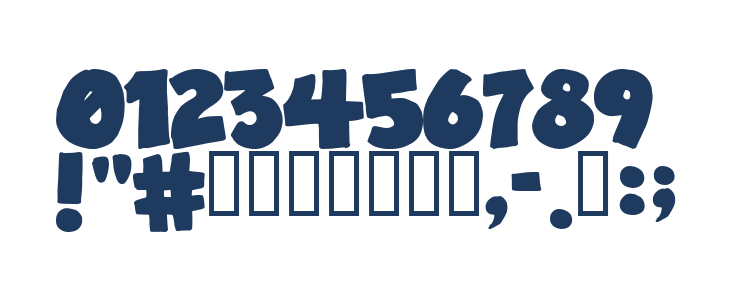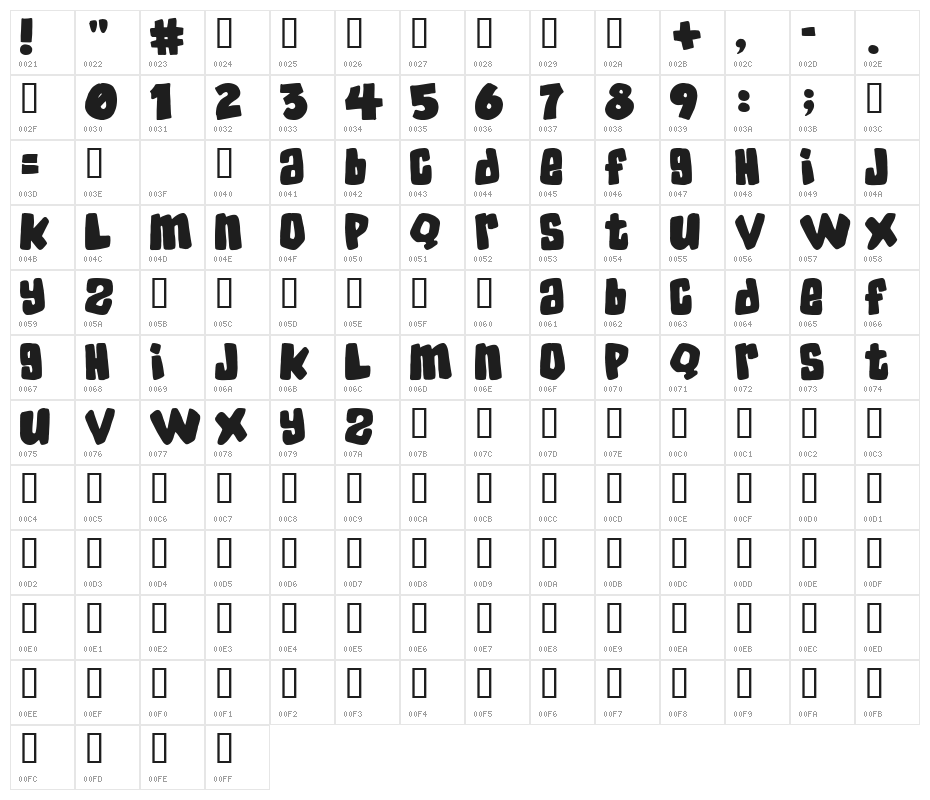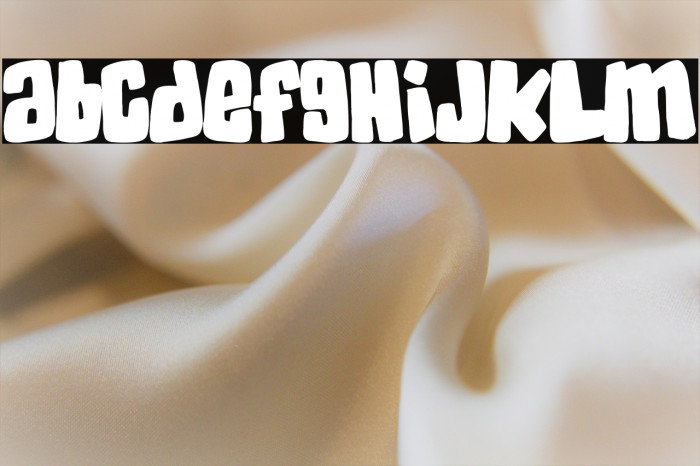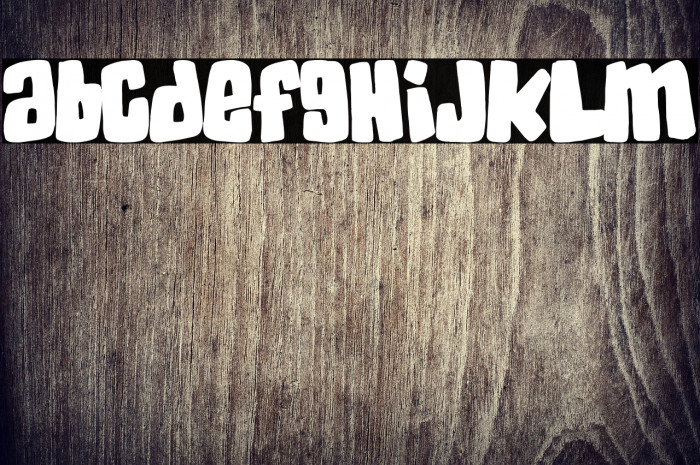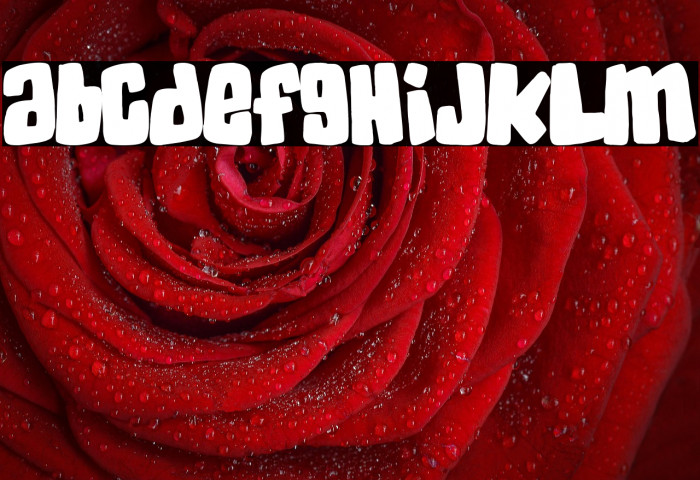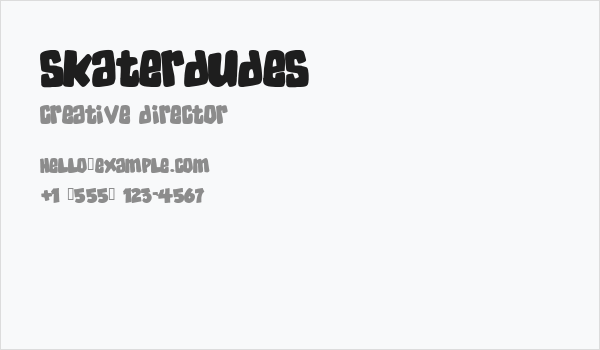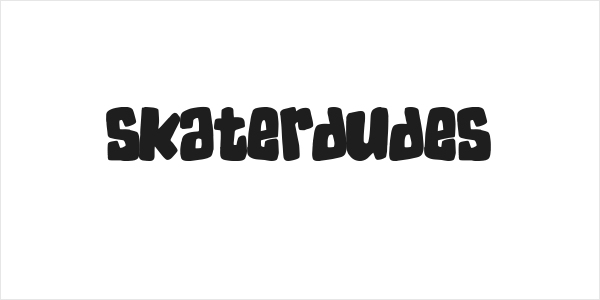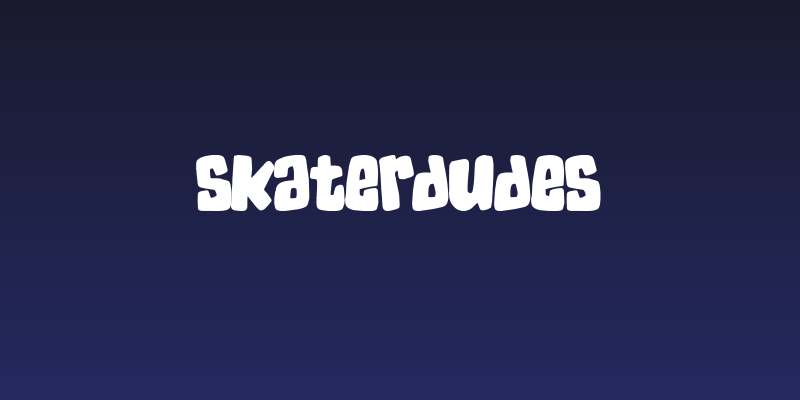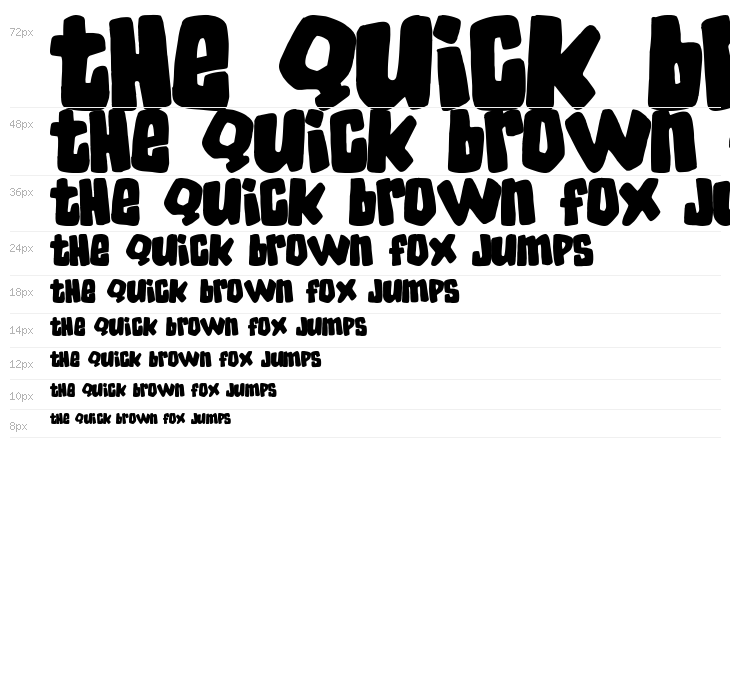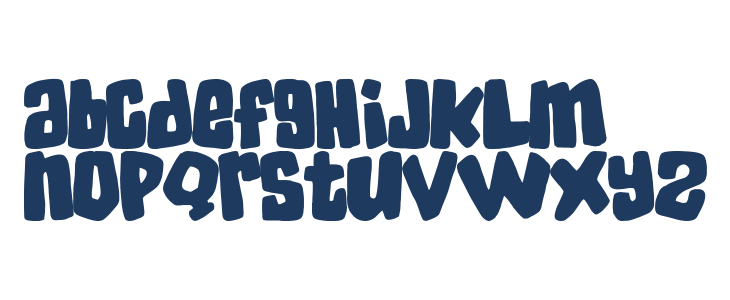
SkaterDudes Font
SkaterDudes Description
This font features a bold and playful design with a distinctly urban and youthful vibe. The characters are rounded and chunky, giving off a casual and relaxed feel. The uppercase and lowercase letters maintain a consistent style, with a slight tilt that adds to the dynamic appearance. The numbers and special characters follow the same aesthetic, ensuring a cohesive look across all text elements. The font's thick strokes and lack of sharp edges make it highly legible, even at smaller sizes, while its unique style ensures it stands out in any design.
| Proposed Projects | Ideal for skateboard brands, streetwear designs, youth-oriented advertising, and event posters. |